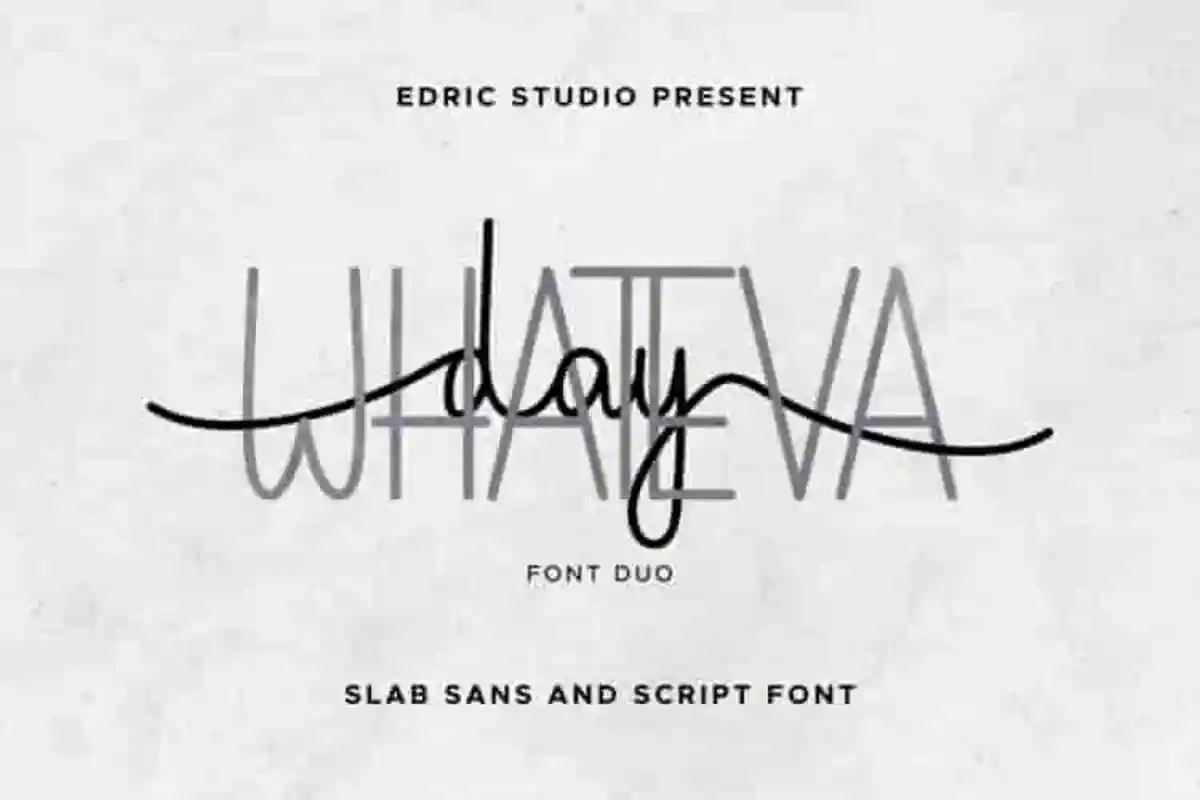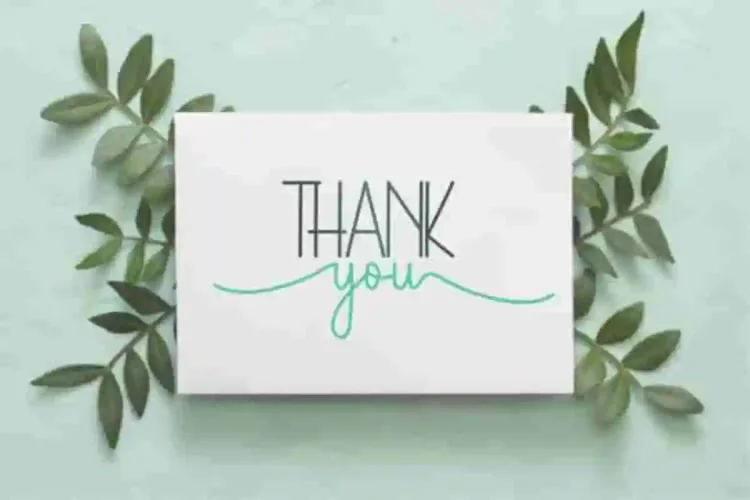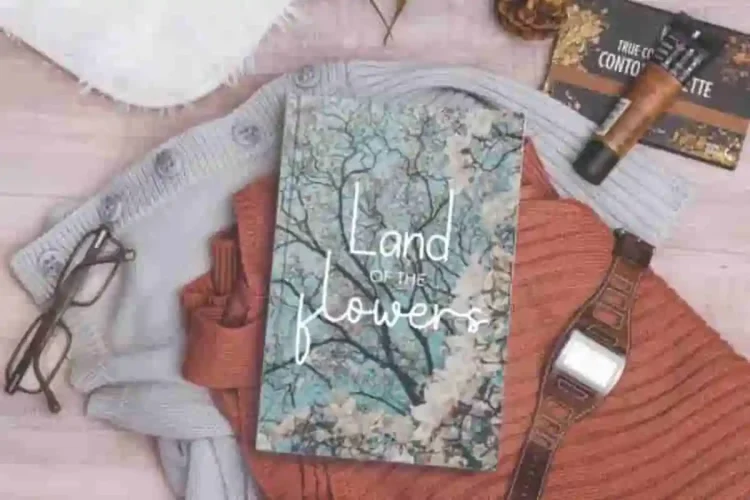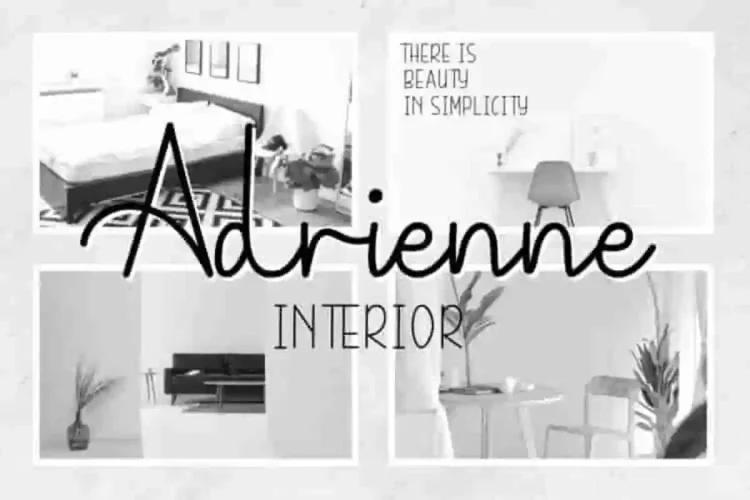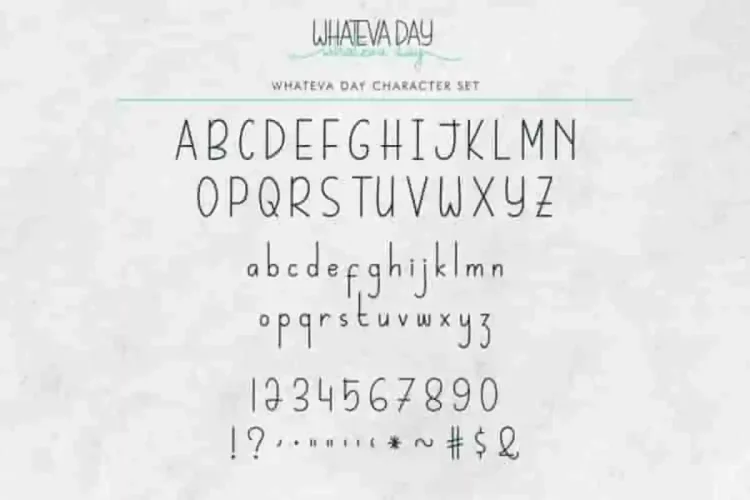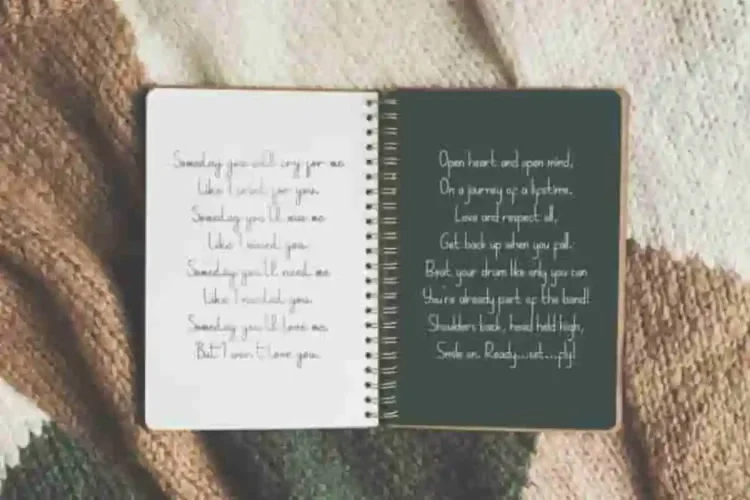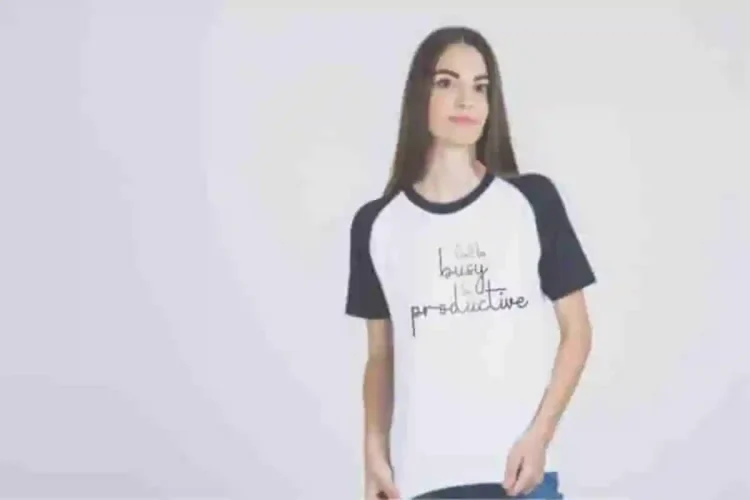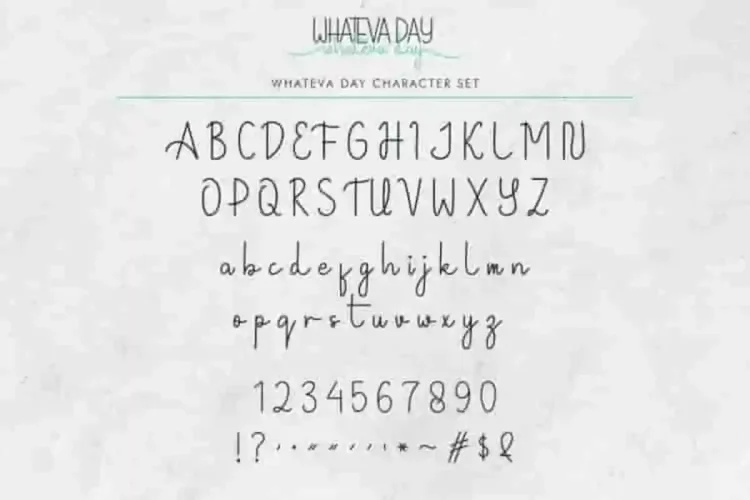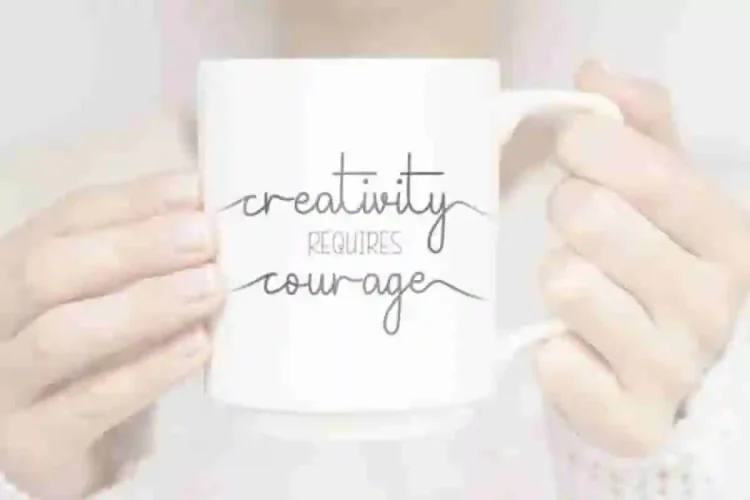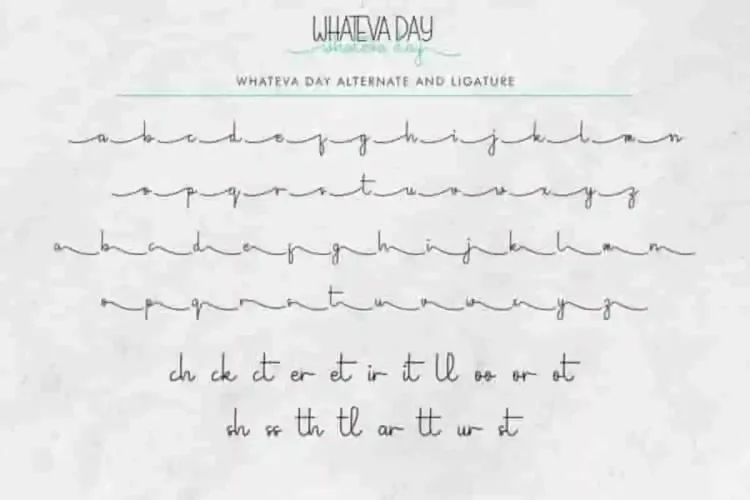
Whateva Day Script Signature Font Duo
Whateva Day Script Signature Font Duo is a font family with duo styles : signature handwriting script and sans serif display. It was handcrafted from our Studio here in, Indonesia. The designers of this beautiful typeface is Widi and Suci.
Whateva Day Script Signature Font Duo comes with unique original characters that looks: elegant, sophisticated, stylish, clean and classic style. It has a stunning characters set, perfectly managed with well spaced and kerning.
Whateva Day Script Signature Font Duo will be great for any projects (with extended license) including : branding, logo, stationery, business card, signage, flyer, brochure etc. Almost all industries will be match for this typeface: wedding, events, real estate, architect, law firm, florist, gardening, makeup artist, travel, hotel, musician etc.